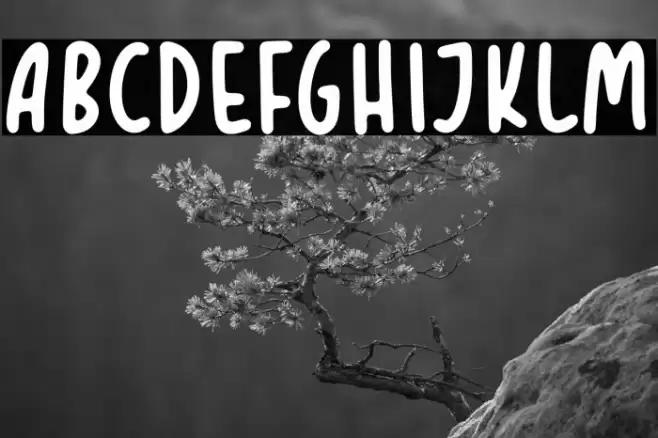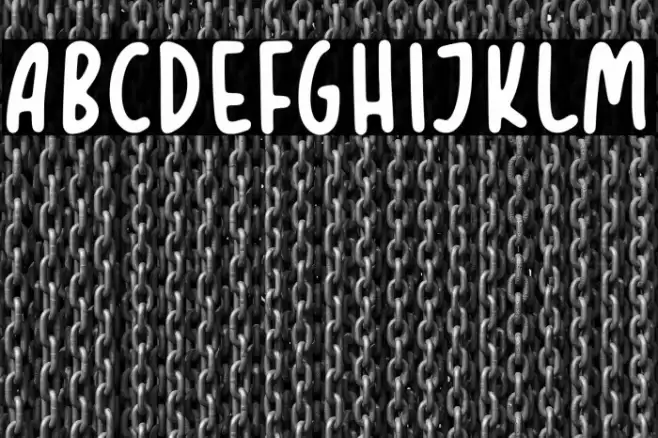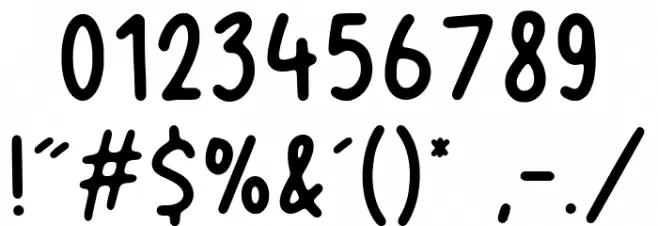
TROPICAL ORANGE Font
TROPICAL ORANGE Description
This font features a playful and bold handwritten style, characterized by its rounded and slightly irregular letterforms. The strokes are consistent in thickness, giving it a cohesive and friendly appearance. The uppercase and lowercase letters maintain a uniform height, contributing to its casual and approachable feel. The numbers and special characters are designed to match the overall aesthetic, making it versatile for various uses. Its informal style is perfect for projects that require a personal touch, such as greeting cards, posters, or social media graphics.
A playful, bold handwritten font with rounded, consistent strokes from Uncategorized fonts.
- Proposed Projects: Ideal for greeting cards, posters, social media graphics, and informal branding.
- Overall Style: Casual
- Use Case: Headlines, Logos, Informal Text